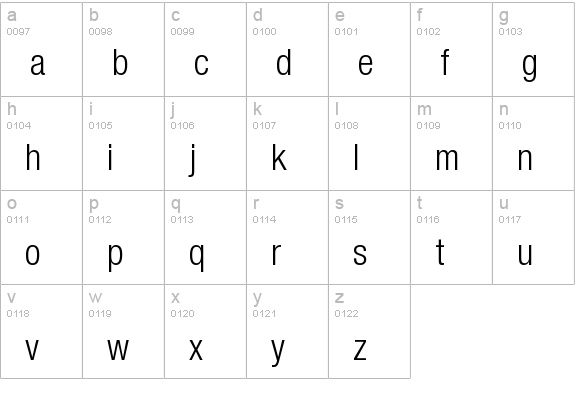
QTHelvetCnd-Light Regular Font Details
QTHelvetCnd-Light Regular is a refined, elegant variant in the QTHelvetCnd typeface family \xE2\x80\x94 well suited to elegant body text, refined sub-headings, and luxury branding.
QTHelvetCnd-Light Regular font is a versatile and elegant typeface that exudes a sense of sophistication and modernity. Its clean lines and balanced proportions make it perfect for a wide range of design projects, from branding and packaging to editorial and web design. This font combines the classic look of Helvetica with a condensed style, resulting in a sleek and space-saving design that is ideal for layouts with limited space. The light weight of this font adds a touch of delicacy and finesse, making it an excellent choice for creating elegant and refined designs. QTHelvetCnd-Light Regular font is not only visually appealing but also highly legible, ensuring that your message is easily communicated to your audience. Its versatility allows it to be used in various contexts, whether it's for headlines, body text, or even logo design. The best part? QTHelvetCnd-Light Regular font is available for free! You can download it at FontsMarket.com, a trusted source for high-quality fonts. This means that you can enjoy the benefits of this beautiful and functional typeface without any cost. So why wait? Enhance your design projects with QTHelvetCnd-Light Regular font today and experience the power of elegance and functionality, all for free.